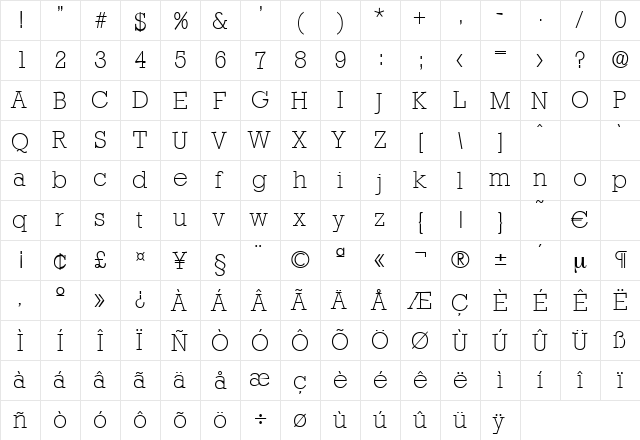
Stafford-Xlight Regular
Design Context for Stafford-Xlight Typeface
Stafford-Xlight takes a measured approach to typography — its balanced proportions and neutral character make it a reliable workhorse for both digital and print work. Its slender proportions lend an understated elegance to any composition.